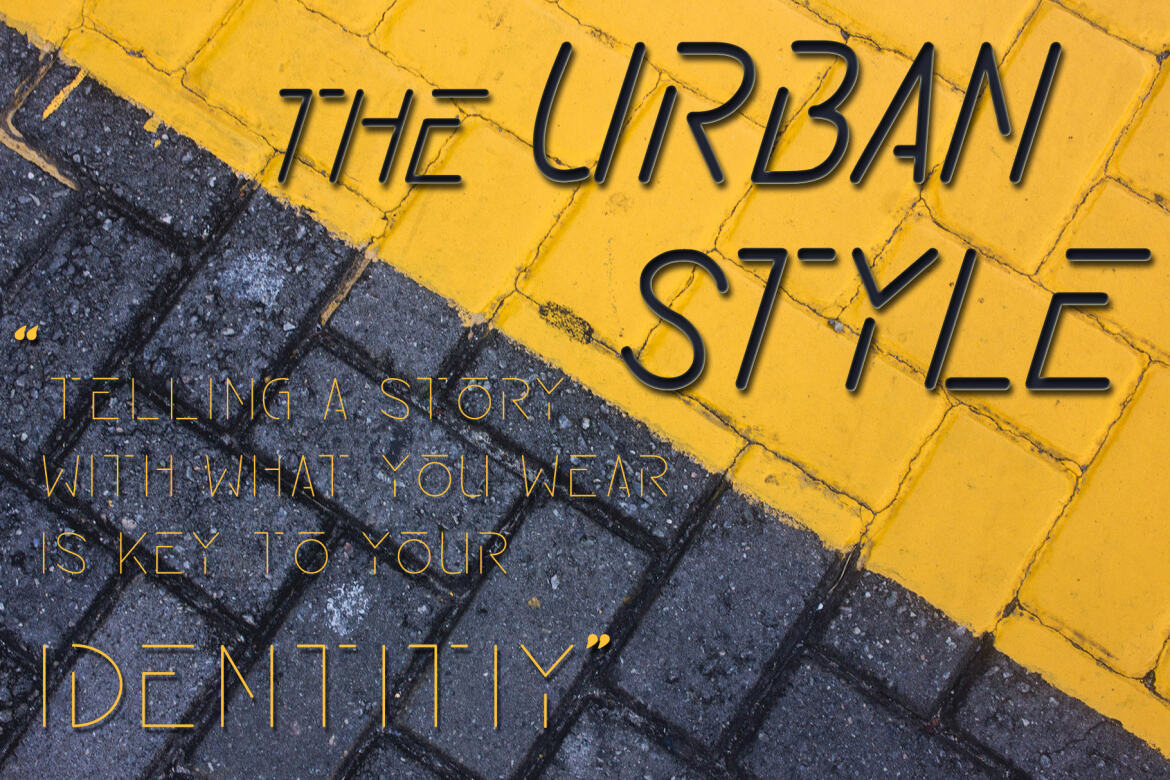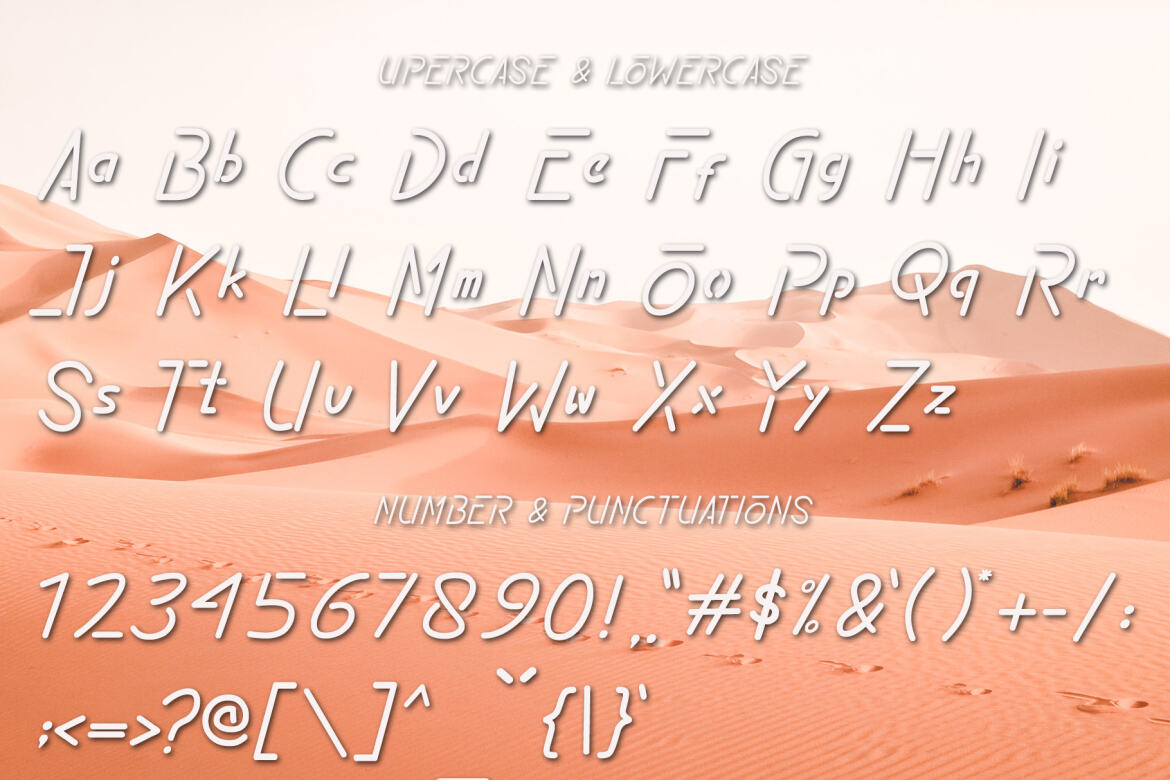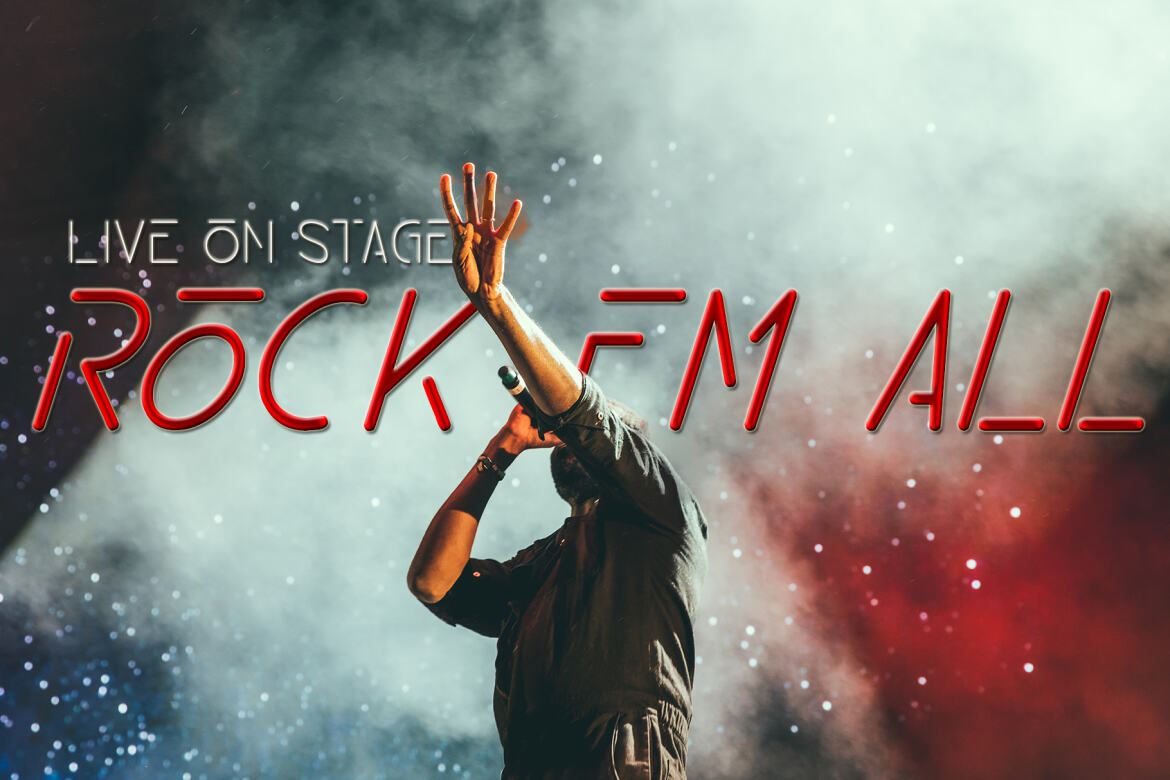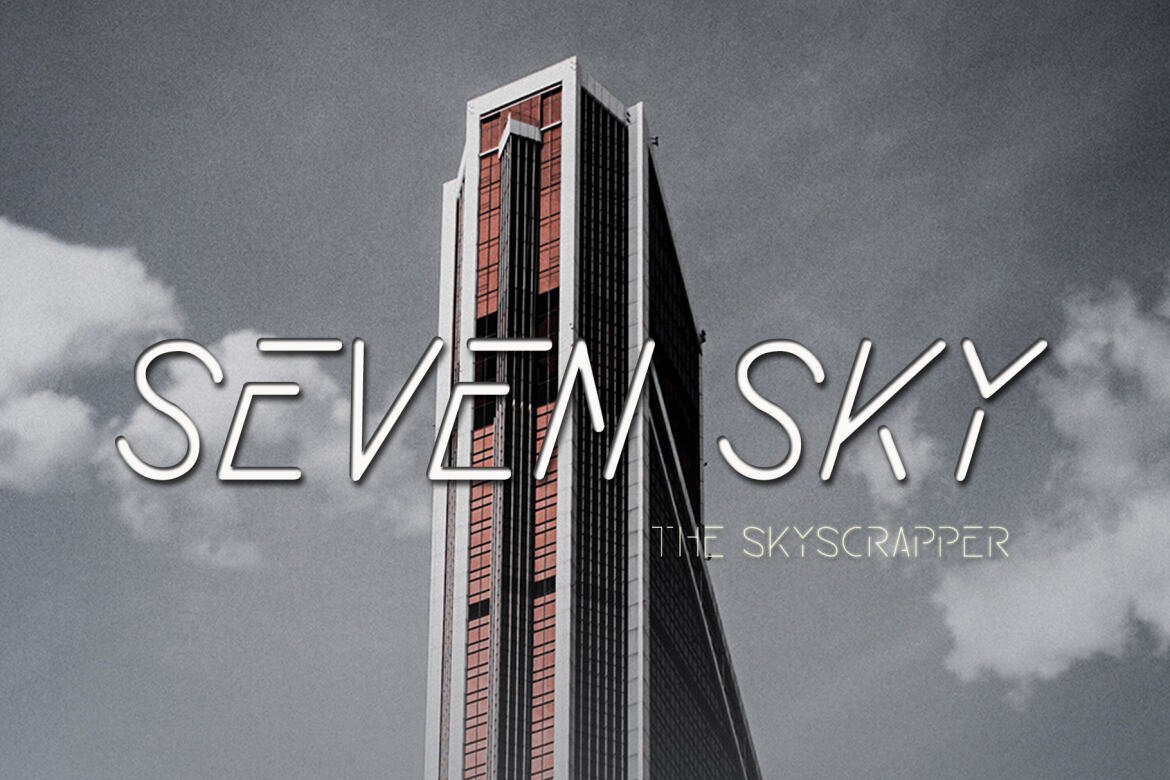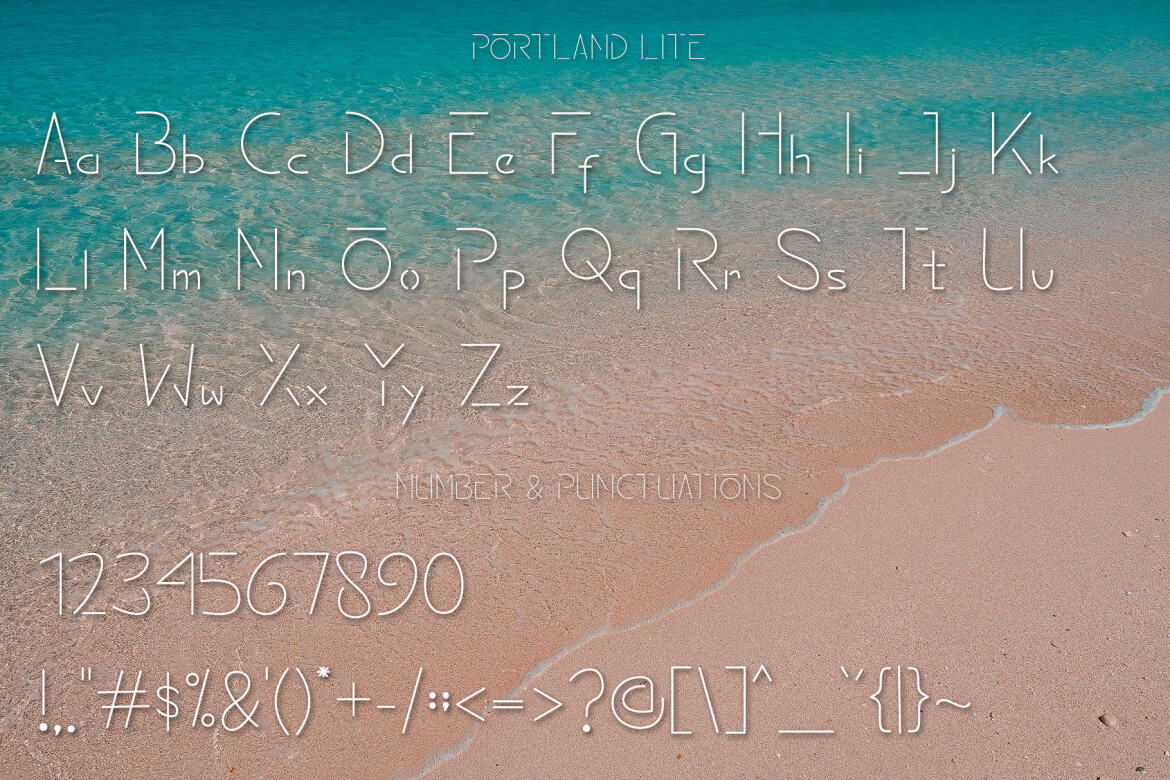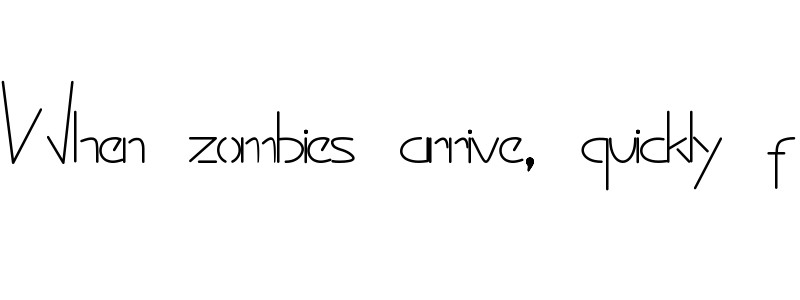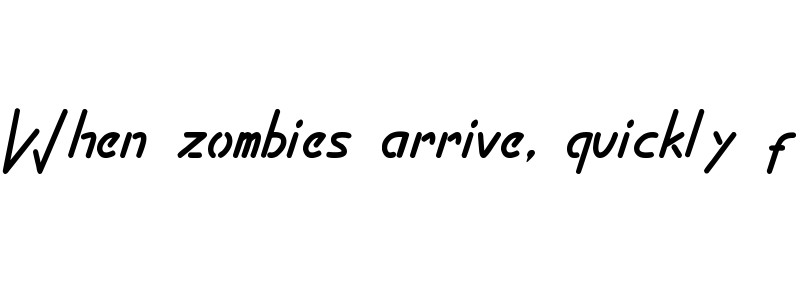
PORTLAND - Free Font
PORTLAND is a modern sans serif font by HizartDesign. It has futuristic sans serif letters that will give your designs a unique and sleek look with elegant characters. PORTLAND is perfect for logos, movie title, a package design, a brand identity, craft design, any DIY project, book title, album cover, packaging, and more.
• Basic Uppercase and Lowercase
• Number and Punctuation
• PORTLAND LITE
• Multilingual Support